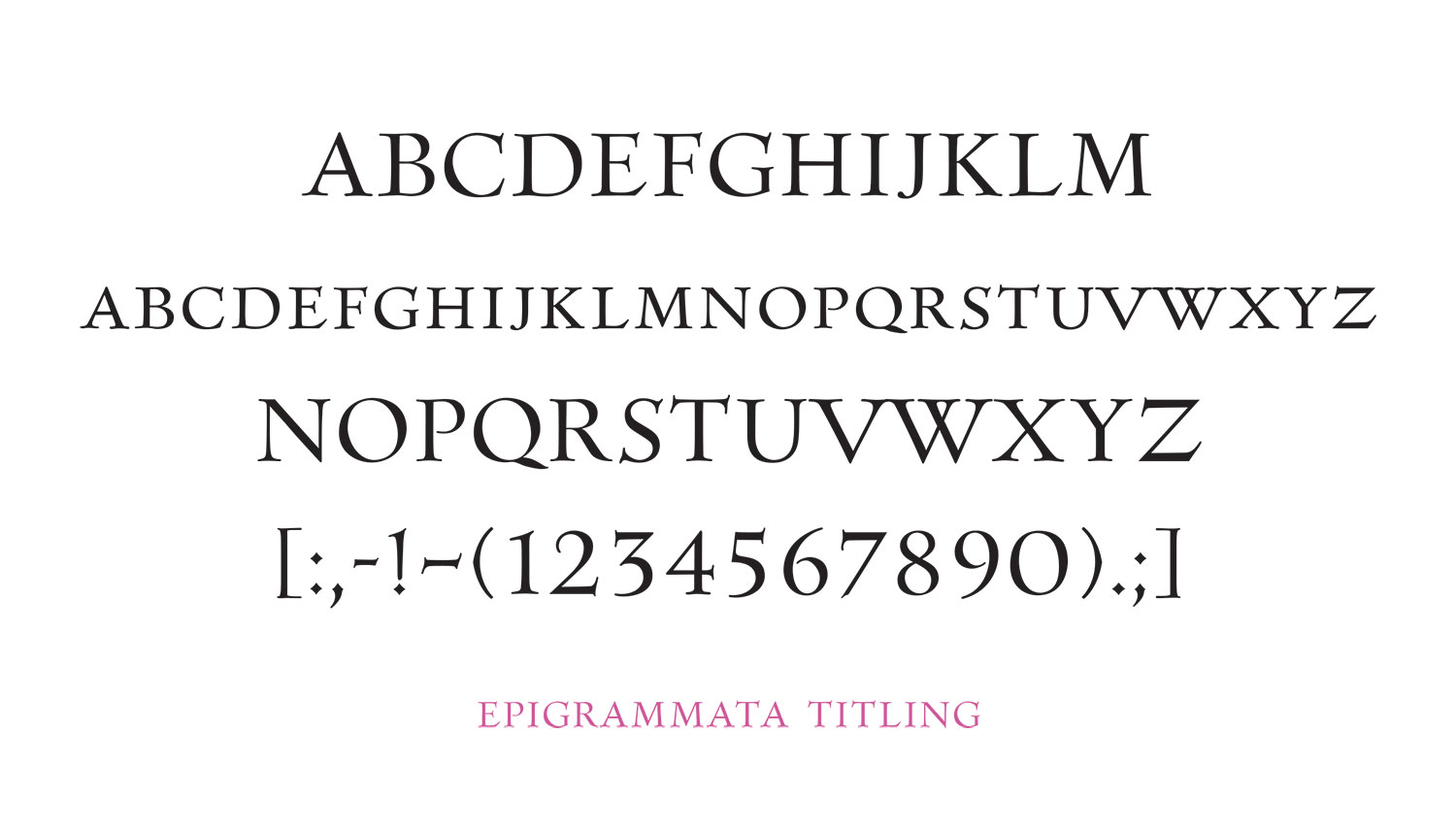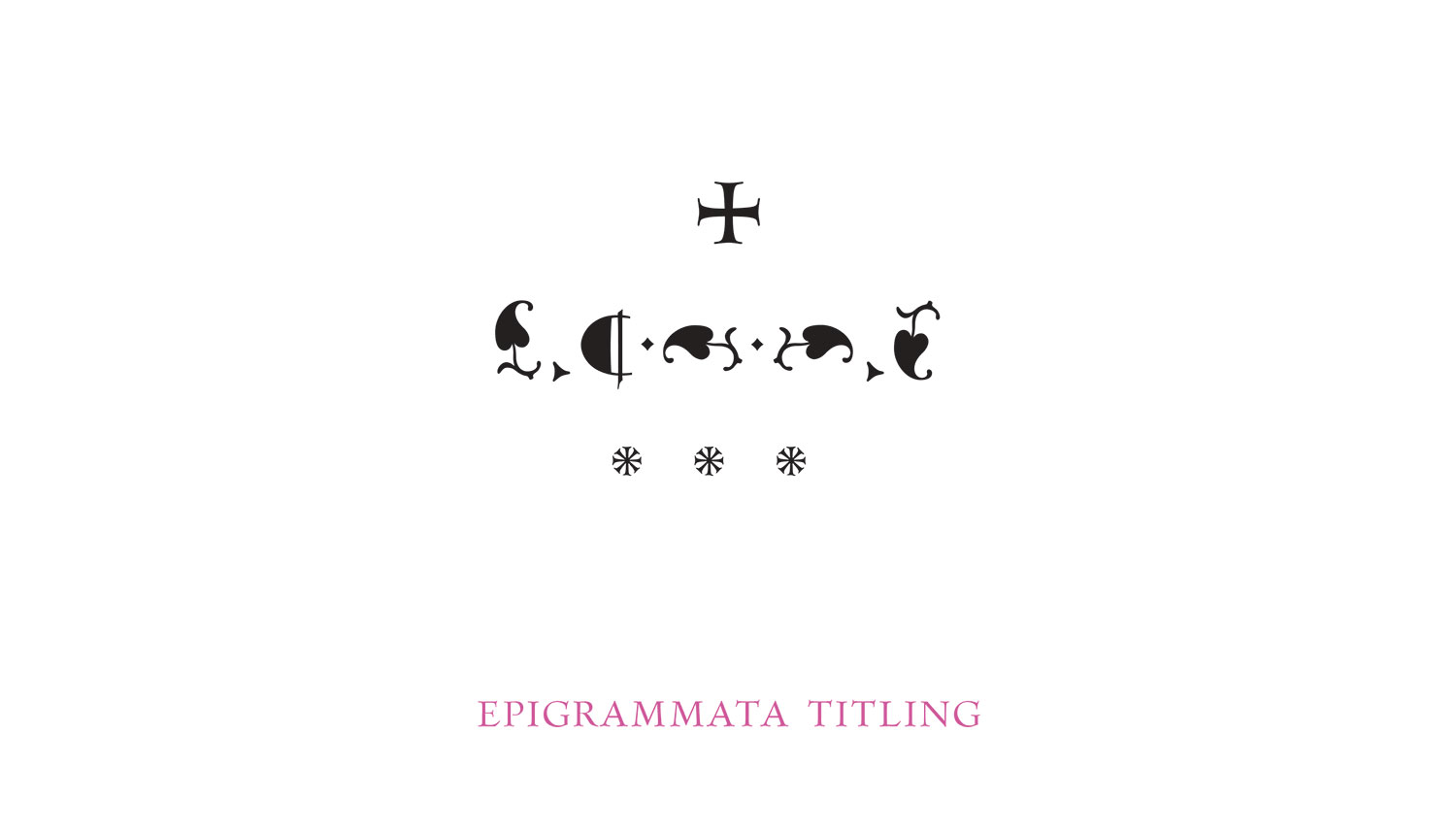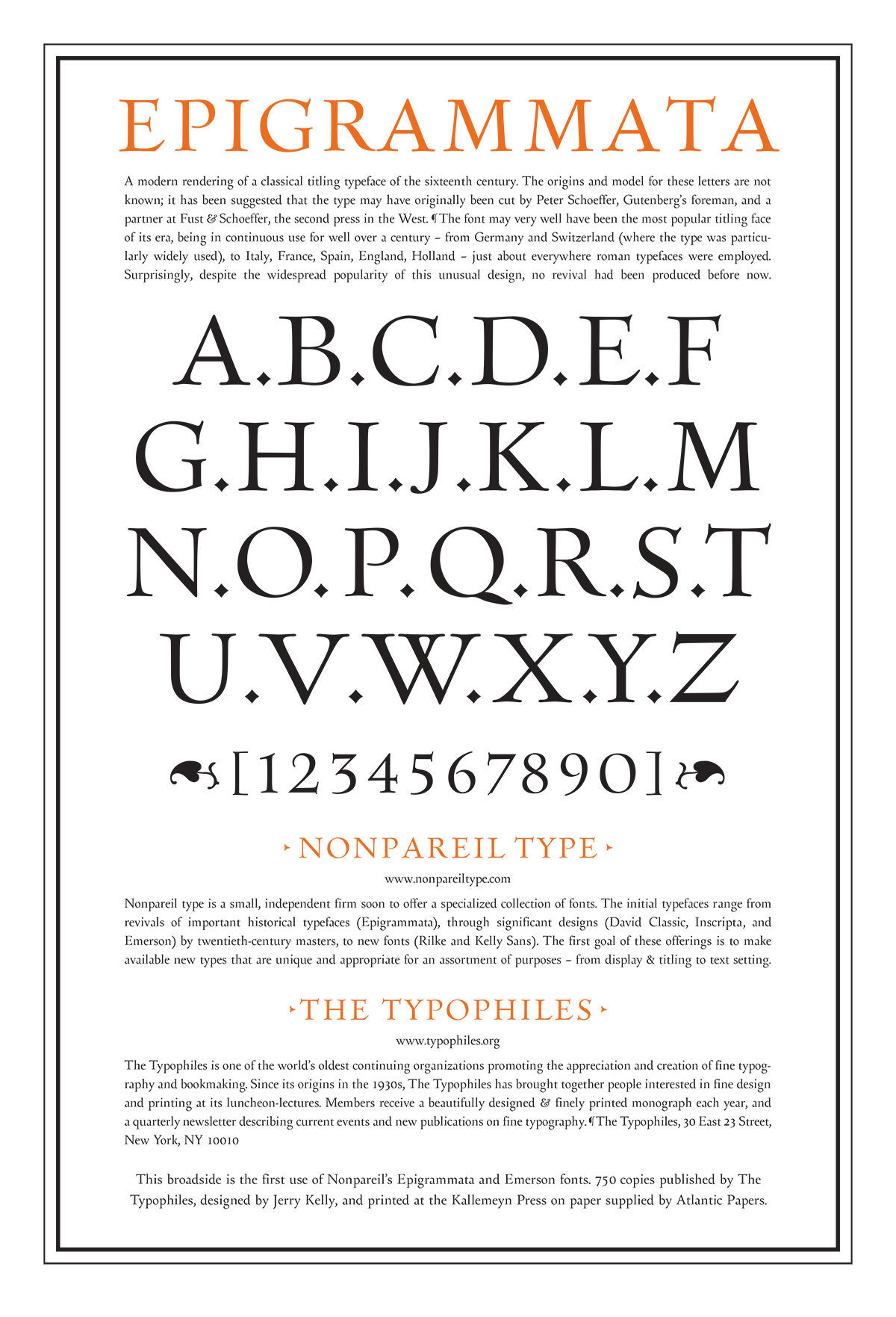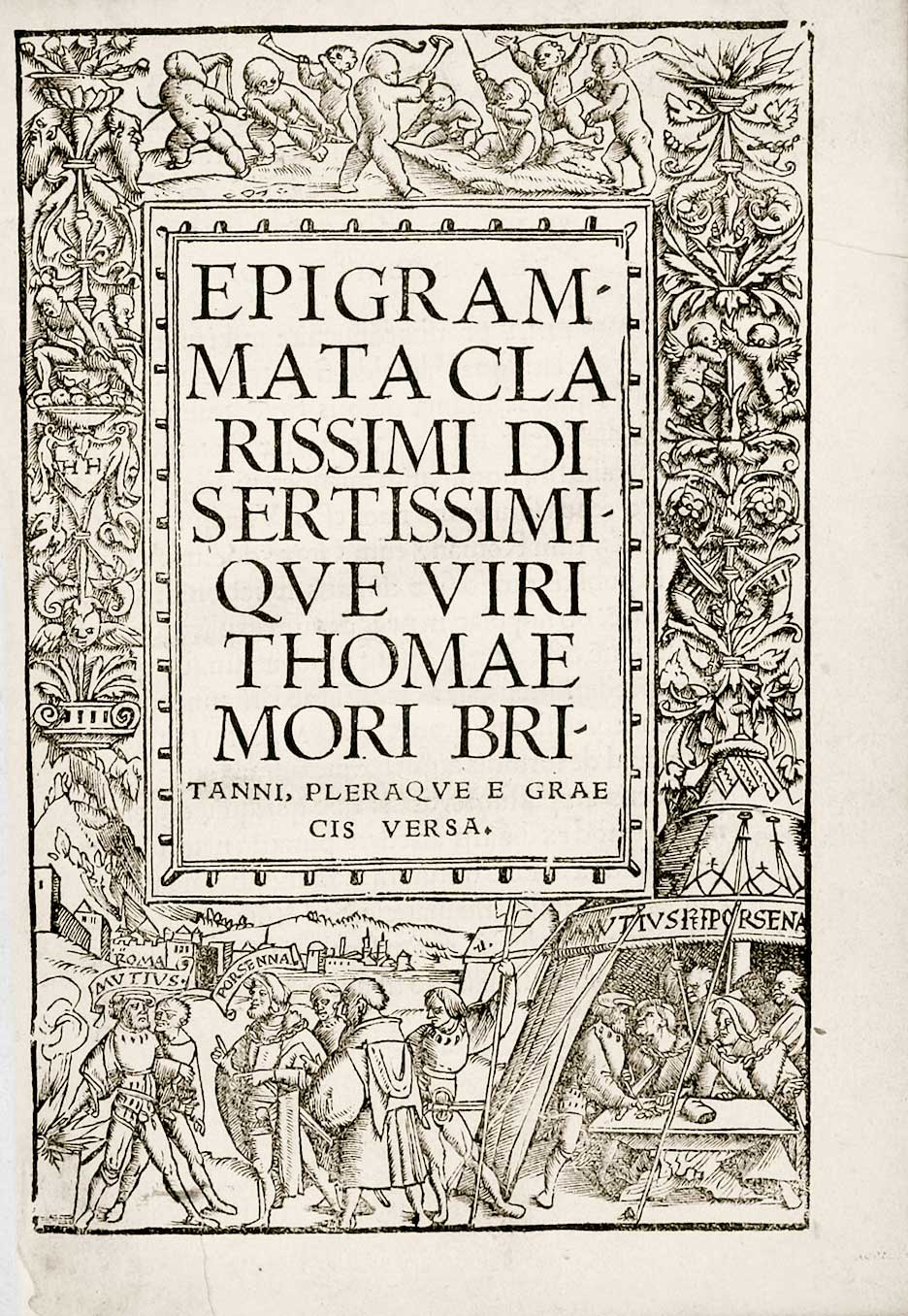
A modern rendering of one of the most famous, and yet mysterious, titling types of all times. It dates back to the sixteenth century and was possibly cut by Peter Schoeffer, Gutenberg’s foreman and a partner at Fust & Schoeffer, the second press in the West. This striking and unusual design soon captivated printers all over Europe, who used it almost continuously for the next century. Amazingly, no revival has been made before now.
Nonpareil’s Epigrammata consists of large and small capitals.
Timeless, elegant and full of a unique graphic character, Epigrammata caps with small caps. Epigrammata is an OpenType font.